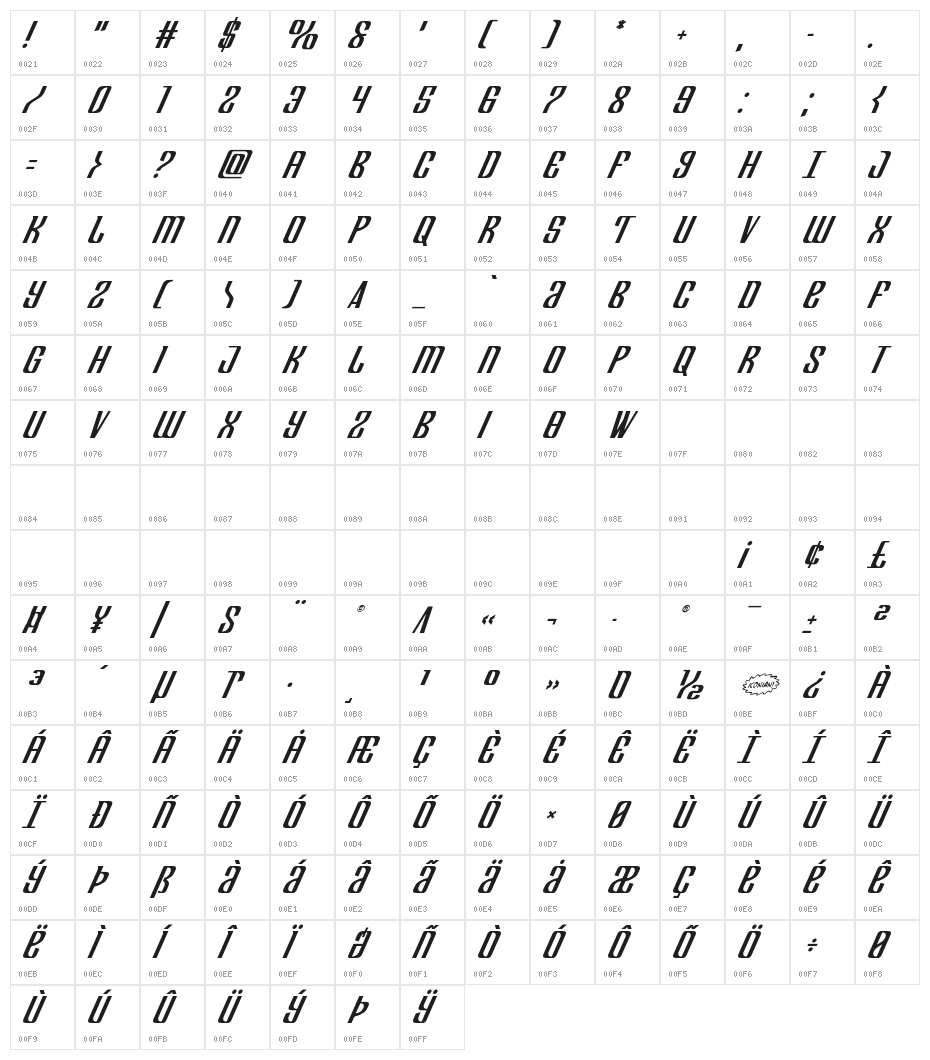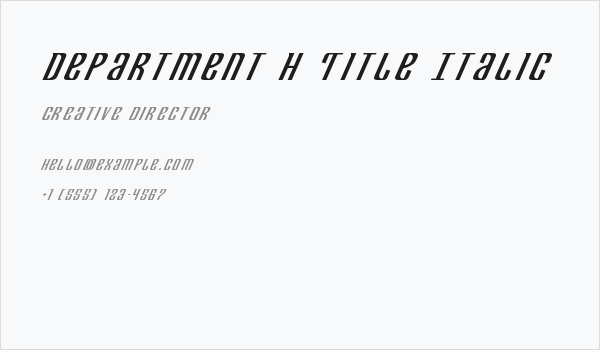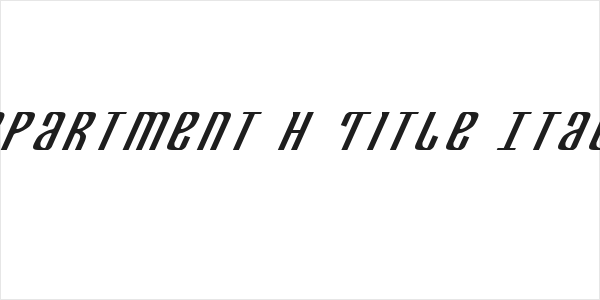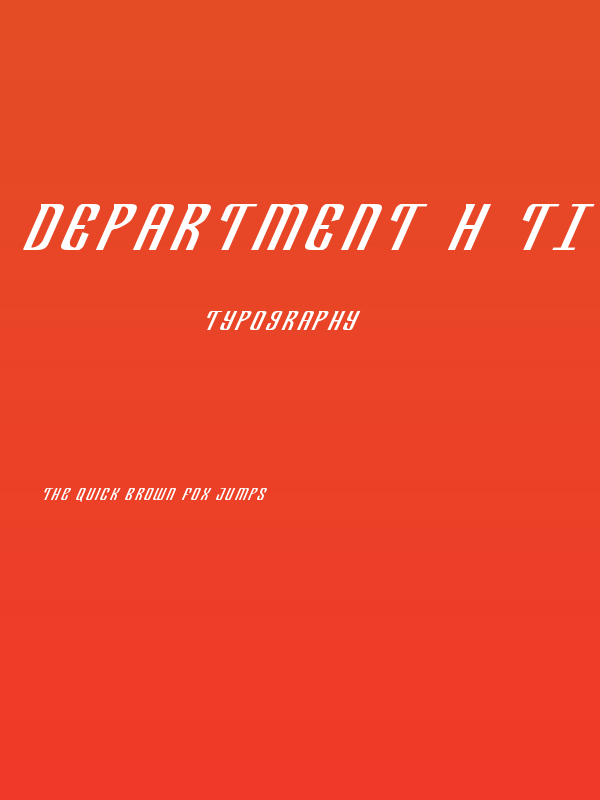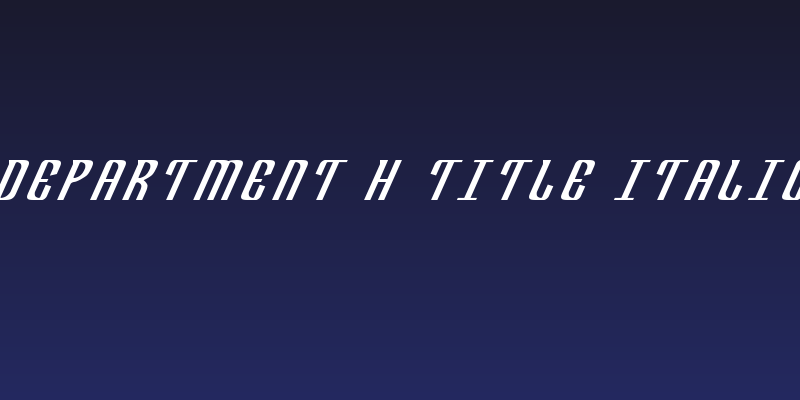
Department H Title Italic Font
Department H Title Italic Description
This font features a bold and dynamic italic style with a distinct slant, giving it a sense of movement and energy. The characters are elongated with sharp, angular edges, creating a sleek and modern appearance. The uppercase and lowercase letters maintain a consistent slant, enhancing the cohesive look of the typeface. The numerals and special characters follow the same design principles, ensuring uniformity across all elements. The font's boldness is balanced by its narrow width, making it suitable for impactful headlines and titles. Its high contrast between thick and thin strokes adds to its striking visual appeal.
| Proposed Projects | Ideal for sports branding, dynamic posters, modern advertising, and eye-catching headlines. |